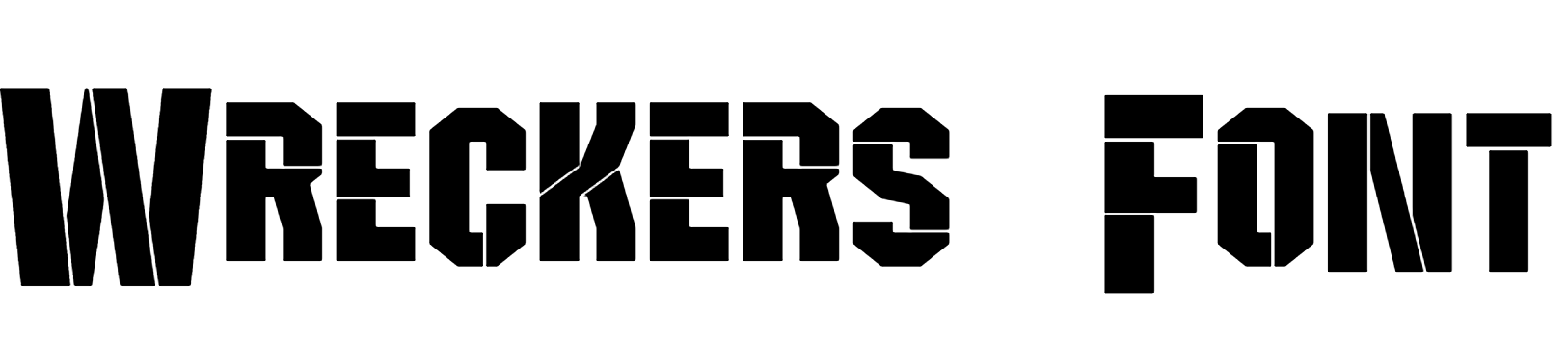
Wreckers
Wreckers is a fancy font created by Neale Davidson and released through Pixel Sagas (2015). It's a decorative display font with plenty of personality, made to grab attention. The free download includes two styles, and you can try every one of them with your own text in the preview above.
- Designer: Neale Davidson
- Publisher: Pixel Sagas
What You Can Type With Wreckers
You get every letter from A to Z in both cases and all the numbers from 0 to 9, which means Wreckers can handle full sentences, dates and prices. Everyday marks like &, !, ? and @ are there too. Thanks to its accented letters, it also works for Spanish, French, German, Portuguese and Italian, not just English.
Where Wreckers Works Best
Wreckers is a natural fit for posters, logos and eye-catching headlines. Its lowercase letters are tall compared to the capitals, which keeps it readable at smaller sizes. The file has no kerning data, so in logos and big titles check pairs like AV, To and Wa and tighten the spacing by hand. Use it for one standout word or headline and let simpler fonts handle the rest. Because the family has more than one style, you can mix them in a single design for headings, subheadings and highlights.
Does Wreckers support accented letters?
Yes. Wreckers includes the accented letters needed for Spanish, French, German, Portuguese and Italian, so it works for more than just English.